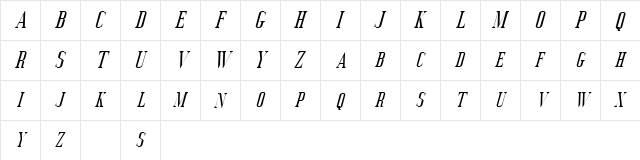
Deluce Free Italic
Design Context for Deluce Free Typeface
Deluce Free takes a measured approach to typography — its balanced proportions and neutral character make it a reliable workhorse for both digital and print work. Its italic angle brings a sense of urgency and motion to the letterforms.
Pro Tip: Use Deluce Free for emphasis, pull quotes, and subheadings where its slanted energy can add rhythm to the layout.